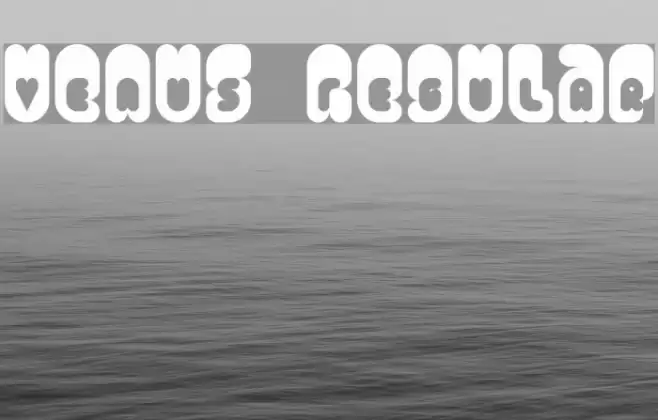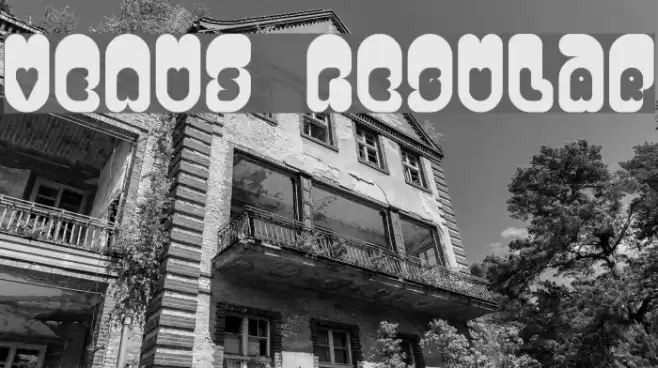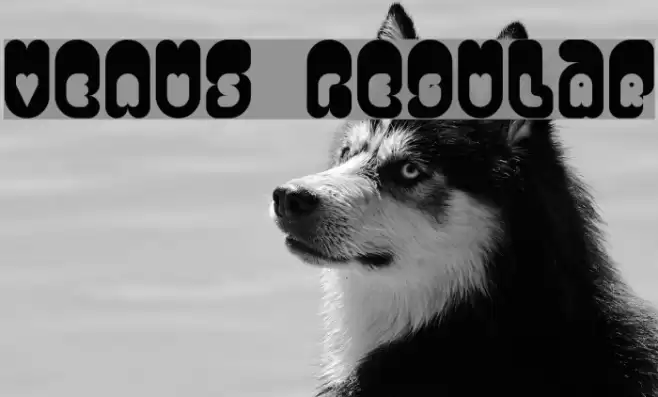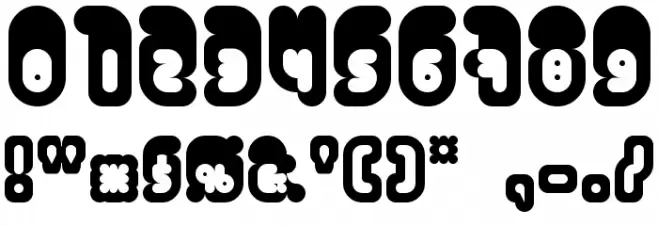
Venus Regular Font
Venus Regular Description
This font features a bold and playful design with rounded, bubble-like characters. The letters are thick and have a consistent weight throughout, giving them a strong presence. The style is highly decorative, with a whimsical and fun appearance that makes it stand out. The characters are tightly spaced, enhancing the boldness and making it suitable for eye-catching designs. The numbers and special characters maintain the same playful aesthetic, ensuring a cohesive look across all text elements.
A bold, playful, and decorative font with rounded, bubble-like characters from Uncategorized fonts.
- Proposed Projects: Ideal for children's books, playful branding, party invitations, and eye-catching posters.
- Character Spacing: Tight
- Overall Style: Playful, Decorative